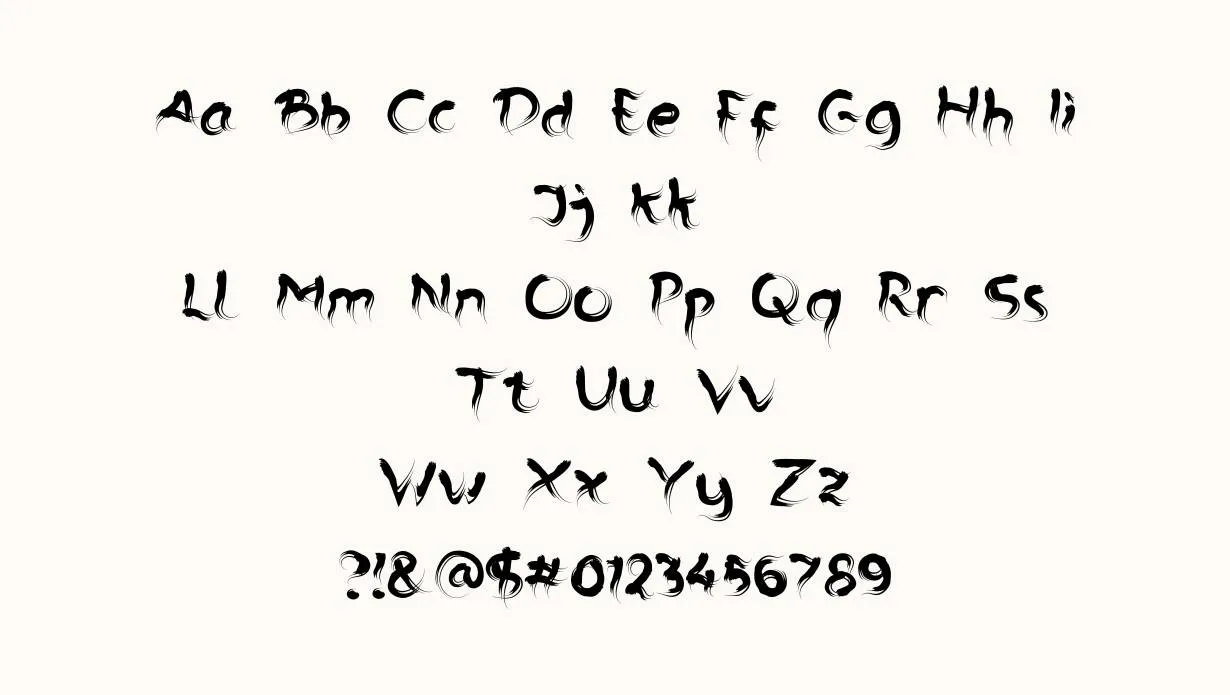
Ghost Font is a mysterious and captivating typeface designed to create an ethereal effect. The subtle transparency of the letters adds an intriguing ghostly quality, making it ideal for projects that aim to evoke curiosity and suspense.
Ghost Font brings a unique and mystifying touch to your designs, leaving a lasting impression that lingers in the viewer’s mind, perfect for adding an element of intrigue to your creative endeavors.
| Name | Ghost Font |
| Designer | Sam Parrett |